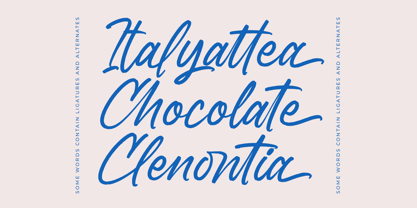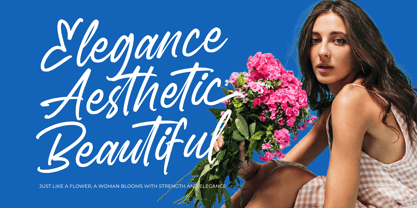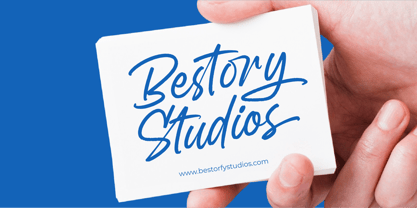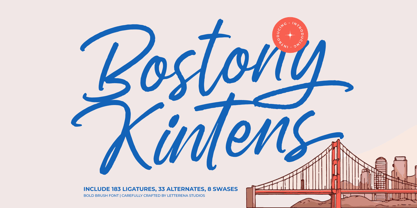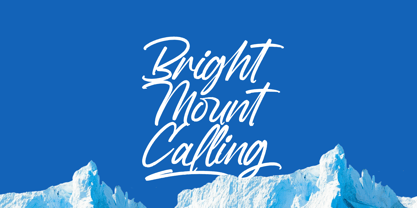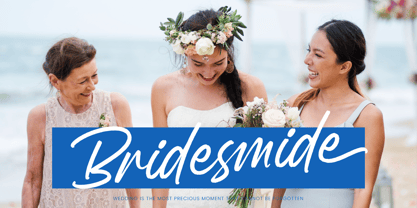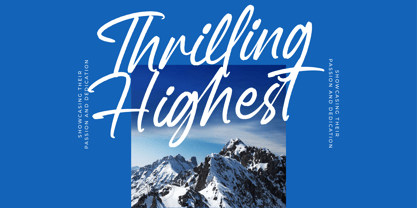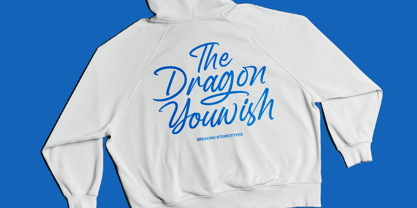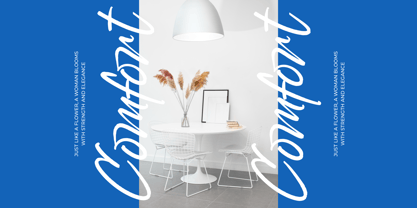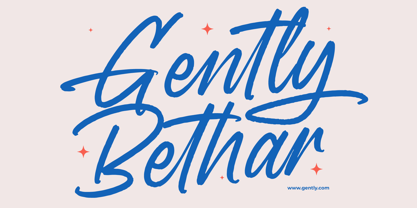
Bostony Kintens
The Bostony Kintens Font Family was designed by Heru Utama Putra and published by Letterena Studios. Bostony Kintens contains 2 styles and family package options. More about this family
Bostony Kintens – Bold Brush Font , from Letterena, is a Luxury Script font, suitable for any projects such as: logos, branding projects, homeware designs, product packaging, mugs, quotes, posters, shopping bags, t-shirts, book covers, name card, invitation cards, greeting cards, label, photography, watermark, special events, and all your other luxury and beautiful projects that need a Luxury Script taste.